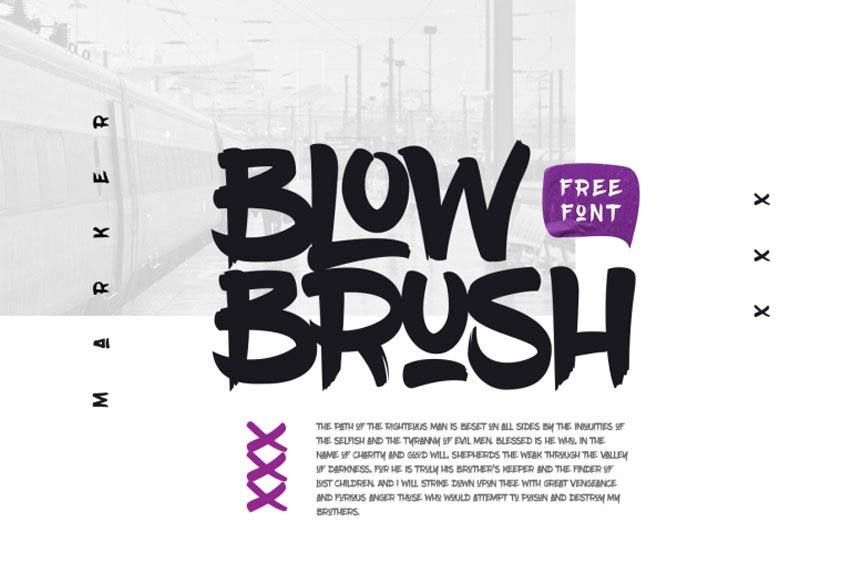
BlowBrush Font
BlowBrush Font has the characteristics of handwritten brush-lettered text, and has natural edges and lines while offering 3000 kerning pairs and 23 ligatures; It is a collection of handmade fonts composed of upper characters, numbers, special characters and their variants that give an interesting marker style appearance.
These variations let each text gain certain individuality due to which, one can add zest, and it will not seem monotonous and all identical, each time you can read an absolutely different text.